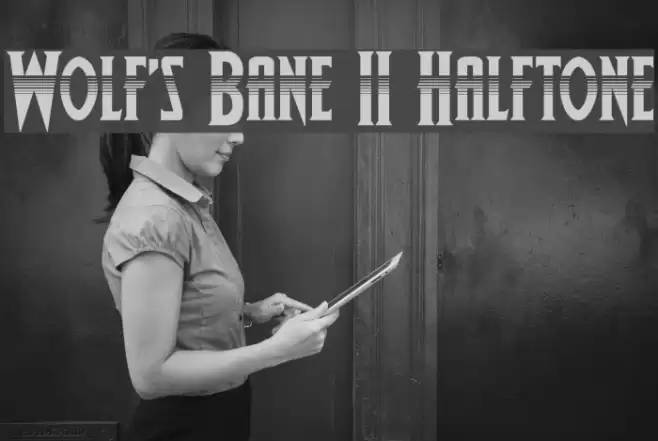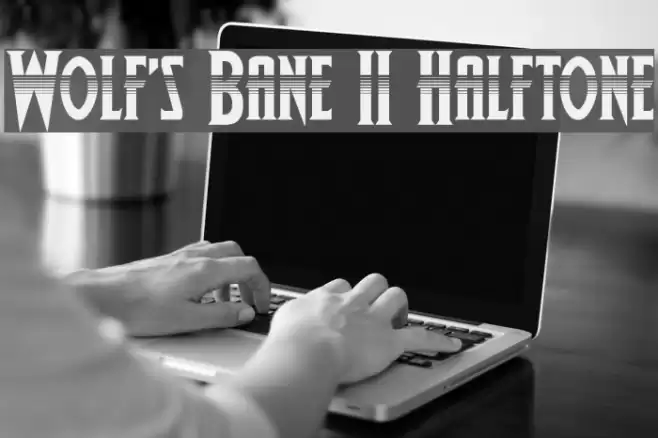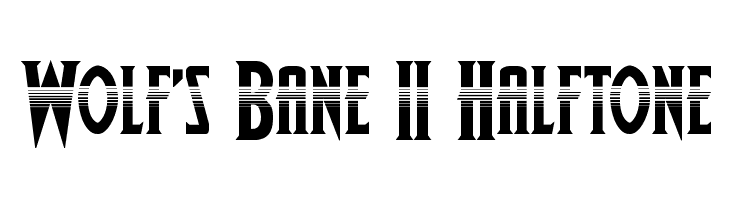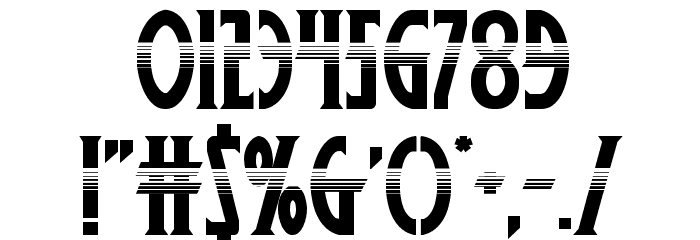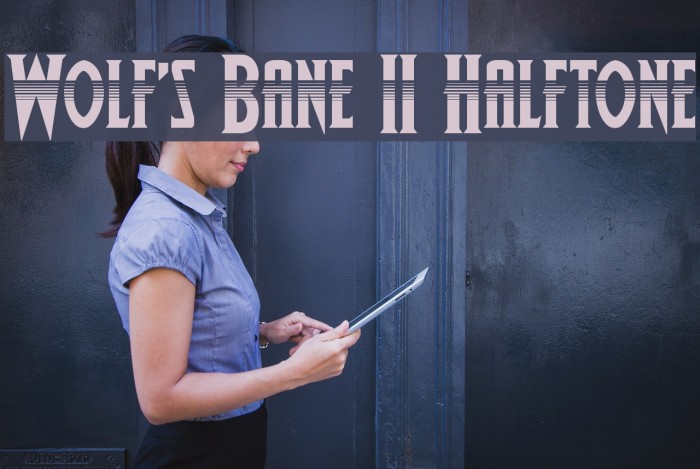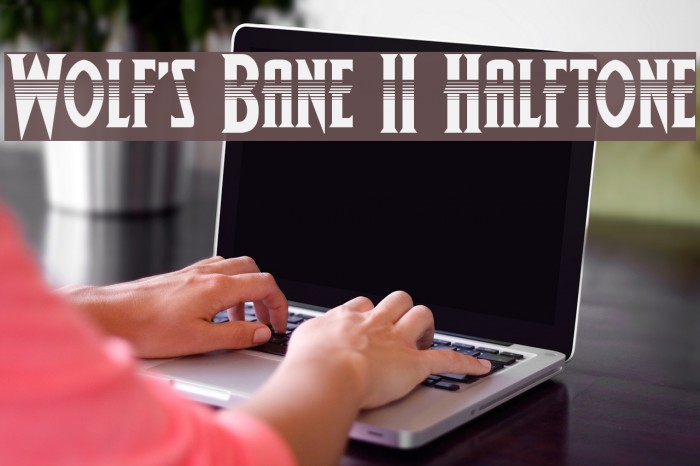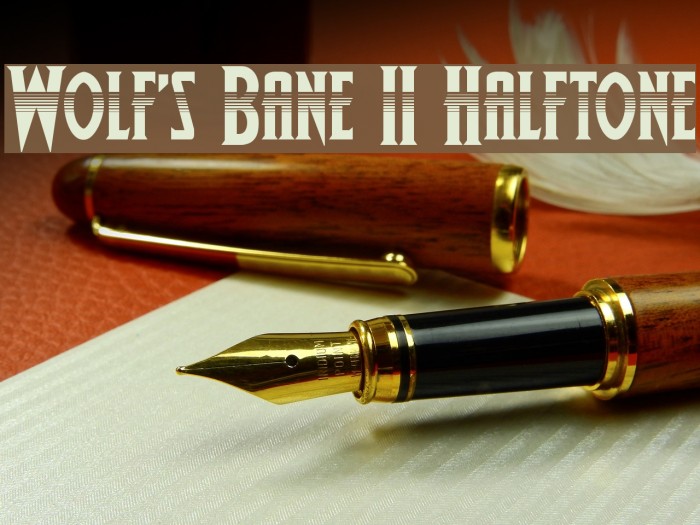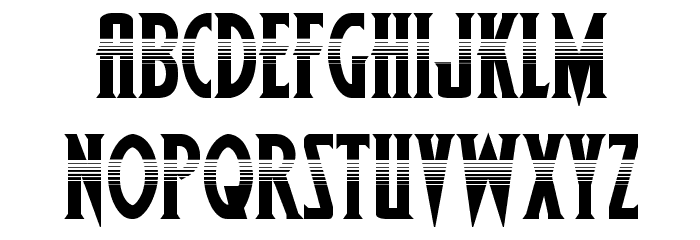
Wolf's Bane II Halftone Font
Wolf's Bane II Halftone Description
This font features a bold and striking design with a unique halftone effect that creates a sense of movement and depth. The uppercase letters are characterized by thick, solid strokes intersected by horizontal lines, giving them a dynamic and modern appearance. The numbers and special characters follow the same style, ensuring consistency throughout the typeface. The overall look is both futuristic and retro, making it suitable for projects that require a bold statement. The spacing between characters is tight, which enhances the compact and impactful nature of the font.
A bold, halftone-effect font with a dynamic and modern style from Retro fonts.
- Proposed Projects: Ideal for posters, album covers, branding, and any design that needs a bold, eye-catching typeface.
- Character Spacing: Tight